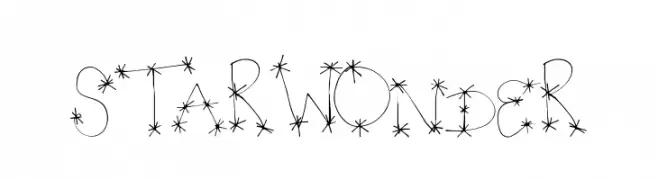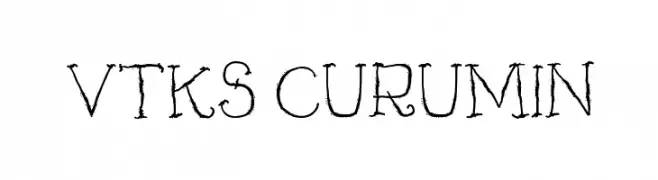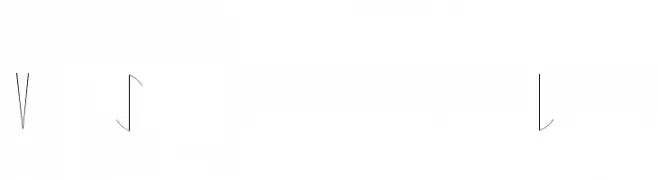
A playful, handwritten font with a casual and whimsical style.
A whimsical, star-adorned decorative font with thin lines and playful design.
A whimsical, hand-drawn font with tall, narrow characters and a playful style.
A whimsical, decorative font with a hand-drawn, vintage aesthetic.
A modern, extra-light sans-serif font with a geometric and minimalist design.
A sleek, modern hairline italic font with a clean and elegant design.
A playful, thin handwritten font with a casual and dynamic style.